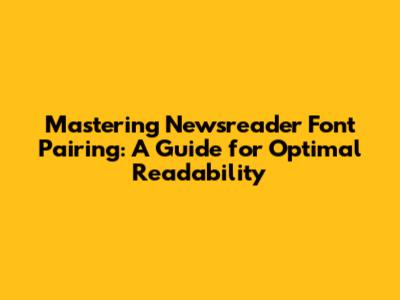
- Pairing 1: Open Sans and Merriweather. Open Sans, a clean, modern sans-serif, is a great choice for headlines and subheadings because it's highly readable and works well at various sizes. Pair this with Merriweather, a serif font specifically designed for screens. Merriweather offers a beautiful, readable body text that provides a comfortable reading experience. The contrast between these two fonts creates a clear visual hierarchy, guiding the reader’s eye through the article.
- Pairing 2: Lato and Roboto. Lato is a sans-serif that strikes a perfect balance between readability and style. It is an excellent choice for body text and provides a modern feel. Use Roboto, another sans-serif, for headings. Roboto is bold and easily catches the eye, making it ideal for the top of sections and article titles. The consistency of these two sans-serifs ensures a cohesive and clean look, which is perfect for newsreaders.
- Pairing 3: Montserrat and Source Serif Pro. Montserrat, a geometric sans-serif, is perfect for headings, its bold appearance making it great for grabbing attention. Complement this with Source Serif Pro, a serif font, for body text. Source Serif Pro is specifically designed for long-form reading, offering a comfortable and engaging reading experience. This combination gives you a modern yet readable layout.
Hey guys! Ever wonder what makes a newsreader app or website feel super easy on the eyes? It's not just the layout; a massive part of the experience boils down to the fonts they use. Getting the newsreader font pairing right is absolutely crucial for keeping your readers engaged and, honestly, making sure they can actually read your content without getting a headache. This article is your go-to guide for navigating the world of font pairing, with a specific focus on the needs of newsreaders. We'll dive into the nuances of choosing fonts that not only look good together but also maximize readability and create a fantastic user experience. Whether you're a developer, a designer, or just someone who loves reading the news, this guide will equip you with the knowledge to make informed font choices. Let's get started and make reading a pleasure, not a chore! And let me tell you, it's more than just picking two fonts; it's about crafting an entire reading environment.
The Significance of Font Pairing for Newsreaders
Alright, let's talk about why newsreader font pairing is such a big deal. For newsreaders, the primary goal is clear: deliver information in a way that's easily digestible. Think about it: readers spend a significant amount of time scrolling through articles, and if the fonts are hard to read, they'll bounce faster than you can say 'clickbait'. Poor font choices can lead to eye strain, fatigue, and a generally unpleasant reading experience. This can seriously damage engagement and brand credibility. Choosing the right fonts ensures that the content is accessible and enjoyable, encouraging readers to stay longer and interact more with your platform. The goal is to create a seamless experience where the design fades into the background, and the content takes center stage. A good font pairing should complement the tone and style of the publication, whether it's serious and professional or lighthearted and conversational. Remember, the fonts you choose set the tone for your entire platform.
Now, how do you find the right fonts? First, you need to understand the characteristics of different font types. We're talking about the classics like serif and sans-serif fonts. Serif fonts, like Times New Roman or Georgia, have those little 'feet' or strokes at the ends of the letters. They're often seen as more traditional and are excellent for body text because the serifs guide the eye across the page, improving readability in long blocks of text. Sans-serif fonts, like Arial or Helvetica, lack these serifs, giving them a cleaner, more modern look. They are often used for headlines, subheadings, and user interface elements, as they tend to stand out and are easy to read at various sizes. When selecting fonts for newsreaders, it's important to consider how well the fonts work together. A good pairing should complement each other, with one font serving as the primary text font and the other for headlines and other design elements. Keep in mind things like x-height, letter spacing, and the overall personality of the fonts. A great font pairing harmonizes readability with the visual appeal of your design, and that's the holy grail, isn’t it?
Why Readability is King
Readability goes beyond just seeing the words; it's about how effortlessly your audience can understand the content. Font pairing significantly impacts readability, dictating how easily the eye follows the text. A well-paired combination ensures clarity, reduces strain, and boosts content consumption. Consider the context: news articles often involve long-form text, requiring fonts that make sustained reading comfortable. Sans-serif fonts are often preferred for their clean look on digital screens, while some designers find serif fonts excellent for long-form content because the serifs guide the eye, helping readability over longer durations. Contrast is key too; you don't want a font pairing where the headline and body text blend together. Ensure a clear distinction for easy scanning. A good font pairing creates a sense of visual hierarchy, making it clear what's most important. This way, readers can quickly scan the article and pick out the key information. Ultimately, a focus on readability enhances user experience, keeping your audience engaged and returning for more.
Core Principles for Effective Font Pairing in Newsreaders
Let's get down to the core principles of effective font pairing for your newsreader. When choosing fonts, you're not just picking ones you like; you're building a reading experience. First up: Contrast! This is absolutely critical. You want a clear visual distinction between your headings, subheadings, and body text. High contrast means the different elements don't blend together. Make sure the font sizes and weights are clearly different so readers can quickly identify the hierarchy of information. Size matters too. For body text, stick with a font size that's easy to read without requiring readers to zoom in constantly. Headlines can be larger and bolder, but ensure they don't overwhelm the text below. The goal is to balance visual appeal with practicality. Consider the font's x-height. X-height is the height of the lowercase 'x' in a font. Fonts with a larger x-height tend to be more readable, especially at smaller sizes, which is important for newsreaders where space can be a constraint. Test, test, and test again! Before you commit to a font pairing, test it on different devices, screen sizes, and in various lighting conditions. See how the fonts look with different backgrounds. This hands-on approach will help you refine your choices to create the best user experience. Don't be afraid to try different combinations to see what works best for your specific content and audience. Ultimately, the best font pairing is the one that provides the best reading experience.
Font Categories and Their Roles
Knowing your font categories is like having the right tools in your toolbox for newsreader font pairing. Serif fonts are your classic, reliable workhorses. They're fantastic for body text. The serifs guide the eye across the page, making them ideal for long-form reading. Think of them as the steady, reliable foundation of your article. Sans-serif fonts, on the other hand, are the modern, versatile options. They're clean, simple, and excellent for headings, subheadings, and any text that needs to stand out. Their simplicity makes them perfect for screens. Then you have display fonts, which are more decorative and artistic. These are best used sparingly, mainly for headings or decorative elements. Don't overuse them; they can easily become distracting in a newsreader environment. Monospace fonts are those where each character takes up the same amount of horizontal space. They're great for code snippets or anything that needs a structured, technical look. Finally, script fonts mimic handwriting. These are best used sparingly for specific design elements or headlines where you want a touch of elegance, but avoid them for body text. A good strategy is to use a serif font for the body text, a sans-serif for headings, and maybe a subtle display font for a section header. This way, you create a visual hierarchy that guides the reader’s eye without being overwhelming.
Practical Font Pairing Examples for Newsreaders
Alright, let's get into some real-world examples for newsreader font pairing, so you can visualize the concepts. Here are a few solid pairings that have been time-tested:
Tools and Resources for Font Pairing
You're not alone, my friend! There are some fantastic tools and resources for font pairing to help you on your journey. Google Fonts is a goldmine. It's free, has tons of fonts, and lets you easily test pairings. They also offer suggestions for compatible fonts. FontPair is a website specifically designed for pairing fonts. You can explore various combinations, see how they look together, and get inspiration. Typewolf is another great resource. It features real-world examples of font pairings used on websites, along with the font names and the overall design. Using these tools lets you experiment without having to do all the guesswork. Remember, good font pairing is an iterative process. Try various options, test them out, and see what feels best for your content. Don't be afraid to experiment, explore different combinations, and see what works best for your brand and your readers. These tools and resources provide the foundation to help you create stunning designs.